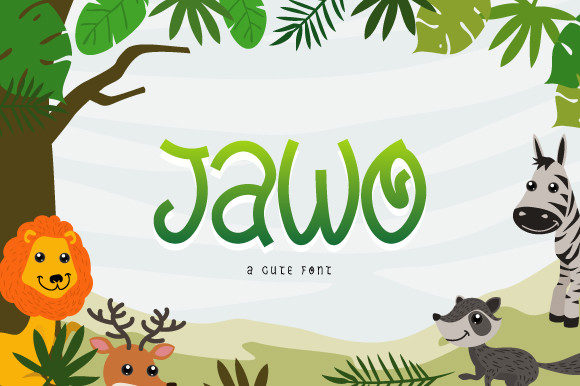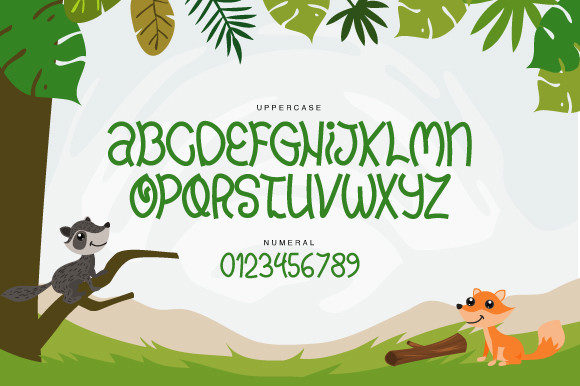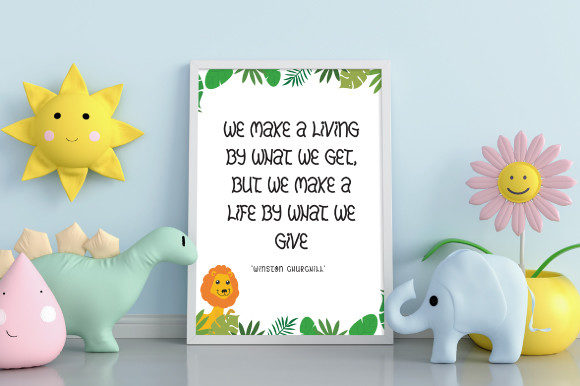
About Jawo Font
Jawo is a cute, whimsical and unique handwritten font. Whether you’re looking for fonts for Instagram or calligraphy scripts for DIY projects, this font will turn any creative idea into a true piece of art!